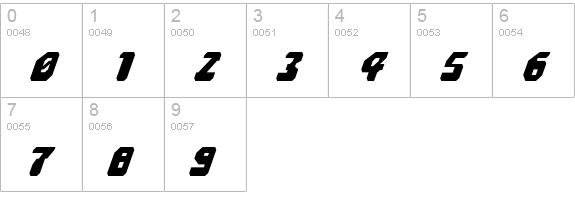
Astropolis Condensed Italic is a distinctive, condensed-width, italic variant in the Astropolis typeface family \xE2\x80\x94 well suited to design and typography projects.
Astropolis Condensed Italic font is a sleek and modern typeface that exudes elegance and sophistication. Its condensed form adds a touch of sleekness to any design, making it perfect for projects that require a contemporary and stylish look. The italic styling of Astropolis Condensed adds a sense of dynamism and flair to your text, making it stand out and grab the reader's attention. Whether used for headlines, titles, or body text, this font is sure to make a statement. Best of all, Astropolis Condensed Italic font is available for free download at FontsMarket.com. This means you can easily access this high-quality typeface without breaking the bank. Don't miss out on the opportunity to elevate your designs with this stunning font. Download Astropolis Condensed Italic today and take your projects to the next level!